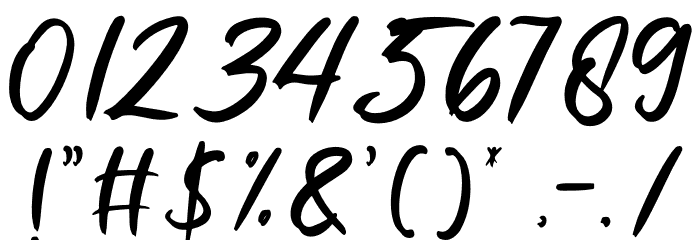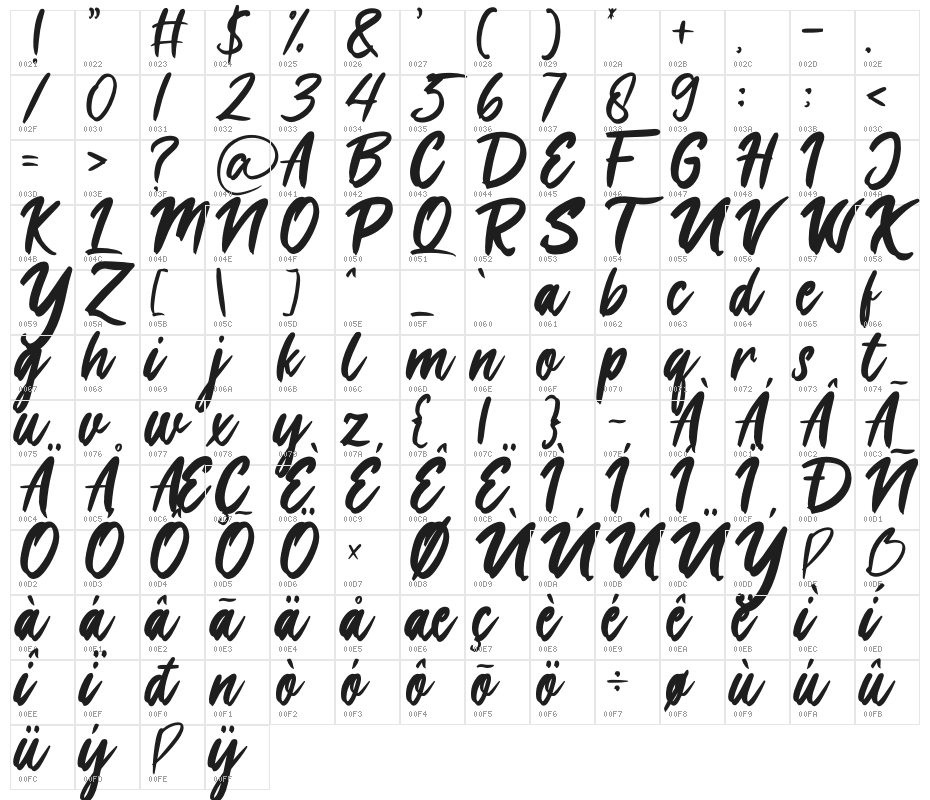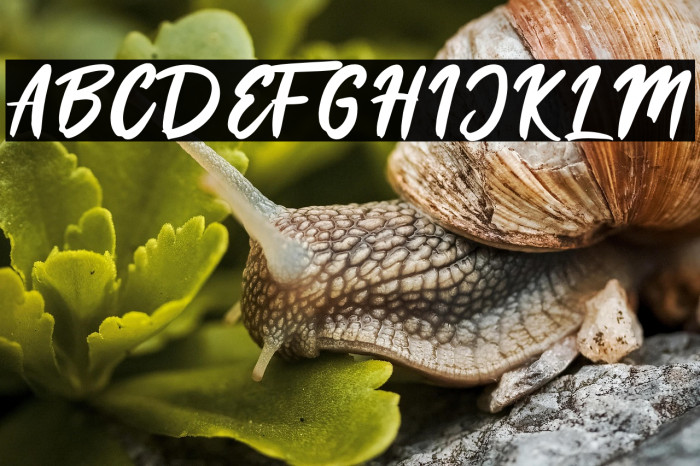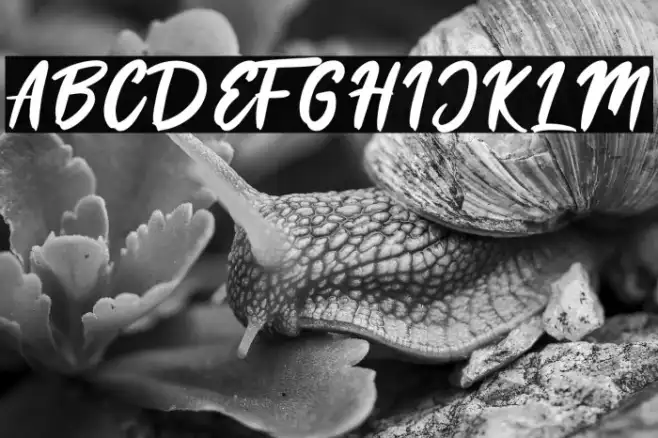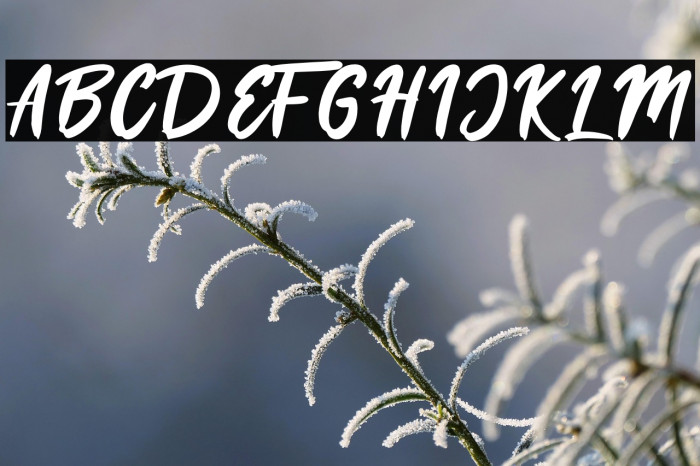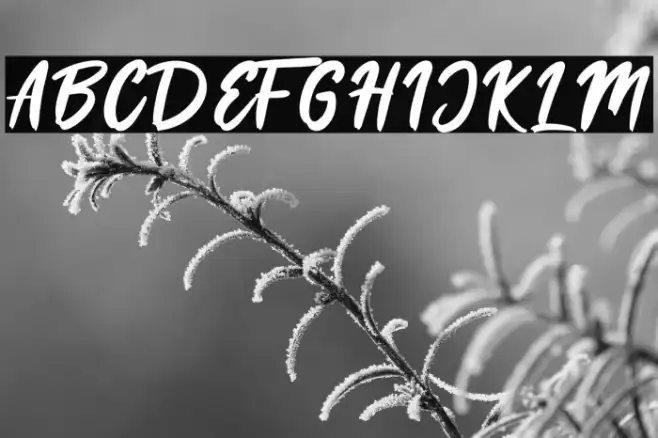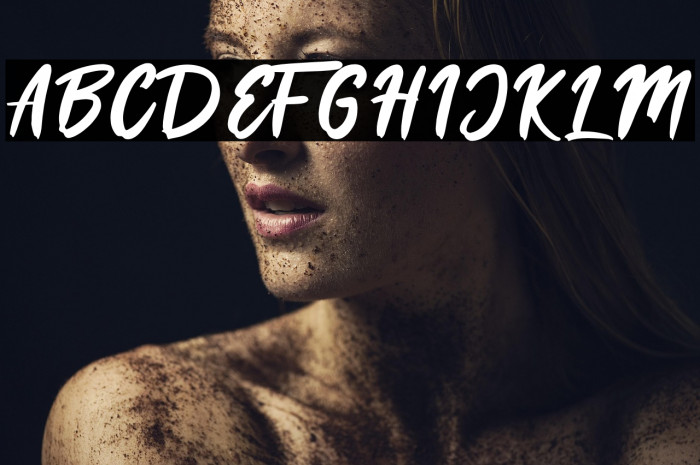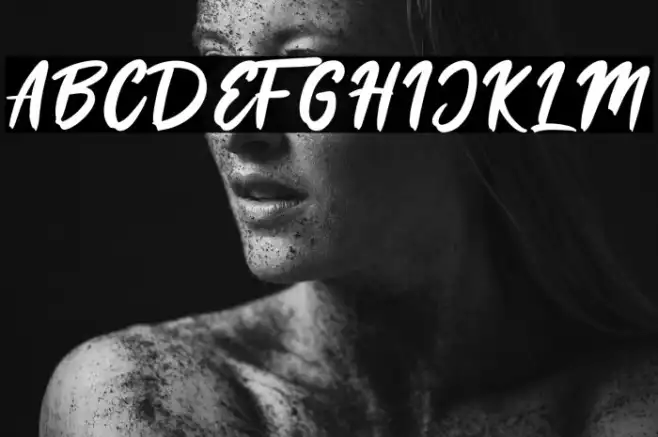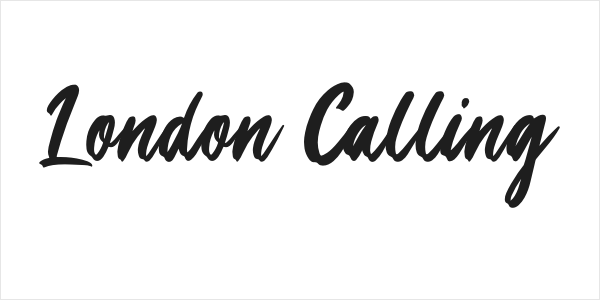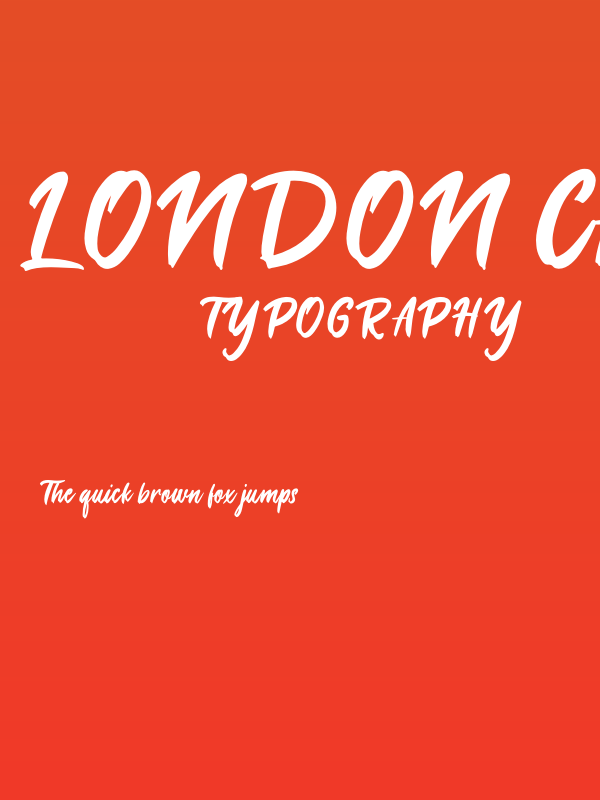
London Calling Font
London Calling Description
This font exhibits a dynamic and energetic script style, characterized by its bold and fluid strokes. The letters are connected in a cursive manner, giving it a handwritten appearance. The uppercase letters are slightly more upright, while the lowercase letters have a more pronounced slant, adding to the overall flow and movement of the text. The numerals and special characters maintain the same lively style, ensuring consistency across all elements. The font's boldness and fluidity make it stand out, making it suitable for projects that require a personal and expressive touch.